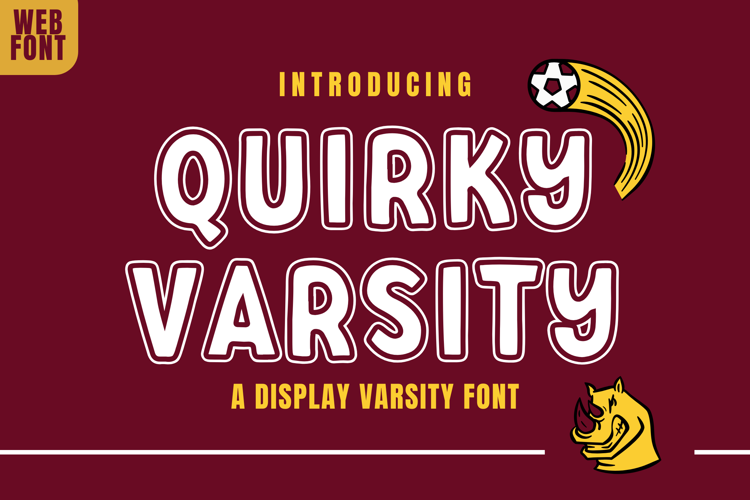
Quirky Varsity - Playful & Retro Stacked Display Font
Quirky Varsity – Playful & Retro Stacked Display Font
Quirky Varsity is a fun, retro-styled stacked font that blends varsity aesthetics with a whimsical twist. With its bold, slightly irregular strokes and hand-drawn charm, this font is perfect for school-themed projects, class merchandise, creative branding, playful posters, and standout titles. It captures the spirit of youthful energy with a nostalgic, quirky flair.
• Stacked Display Lettering: Bold characters with a vertically stacked layout for unique visual impact.
• Retro Meets Whimsy: Combines classic varsity styling with a quirky, casual touch.
• Great for Playful Projects: Ideal for event posters, youth apparel, school merch, scrapbooking, and creative branding.
• Complete Character Set: Includes uppercase, lowercase, numbers, punctuation, and multilingual support.